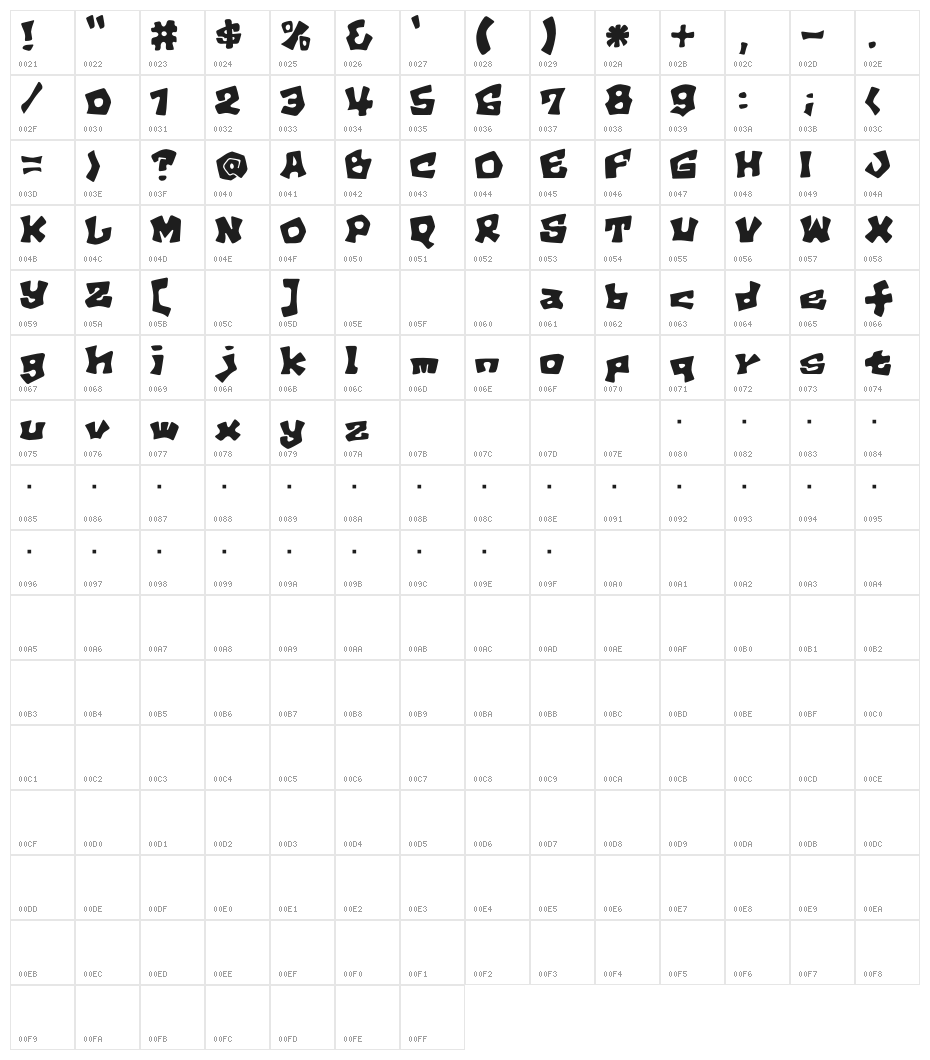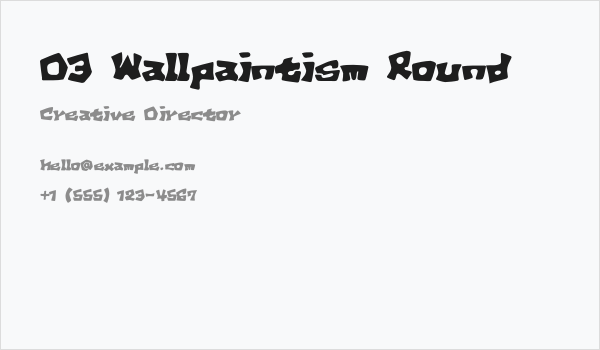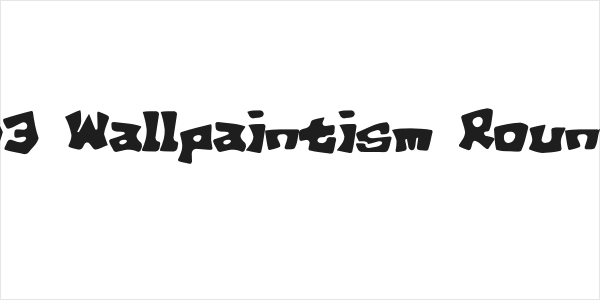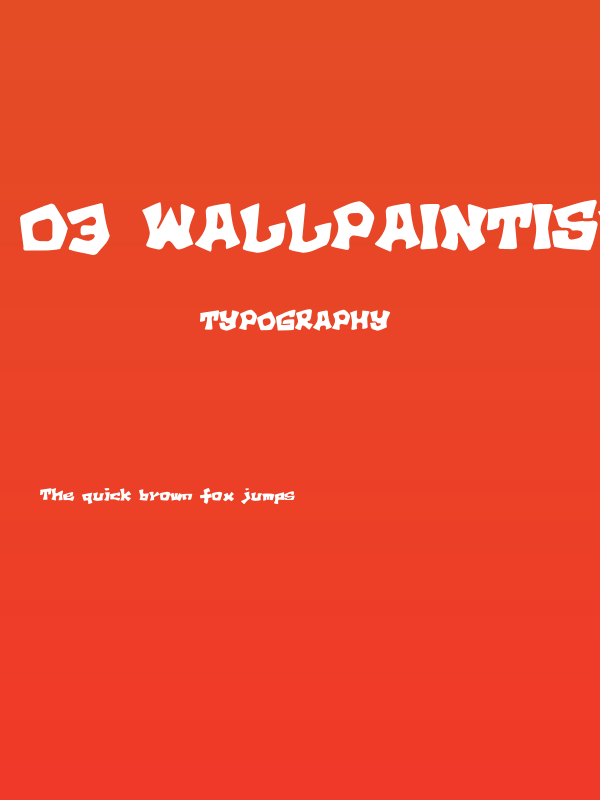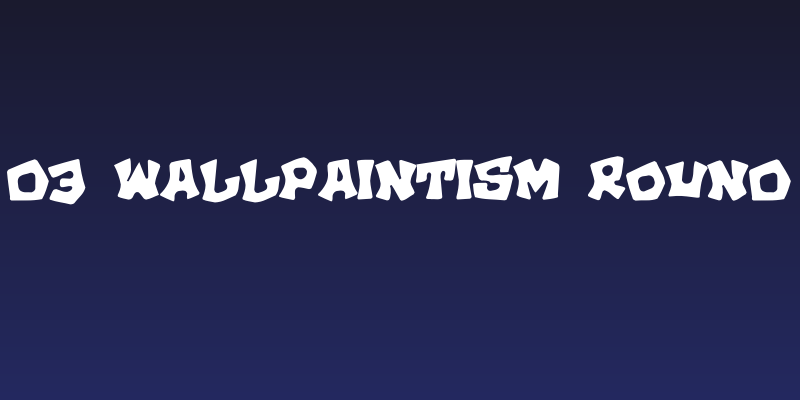
D3 Wallpaintism Round Font
D3 Wallpaintism Round Description
This font features a bold and playful style with a graffiti-like appearance. The characters are rounded and irregular, giving them a hand-drawn, artistic feel. The uppercase and lowercase letters maintain a consistent style, with exaggerated curves and angles that create a dynamic visual impact. The numbers and special characters follow the same design principles, ensuring a cohesive look across all elements. This font's unique style makes it stand out, perfect for projects that require a creative and unconventional touch.
| Overall Style | Modern, Artistic |
| Proposed Projects | Ideal for street art designs, urban-themed posters, creative branding, and eye-catching headlines. |